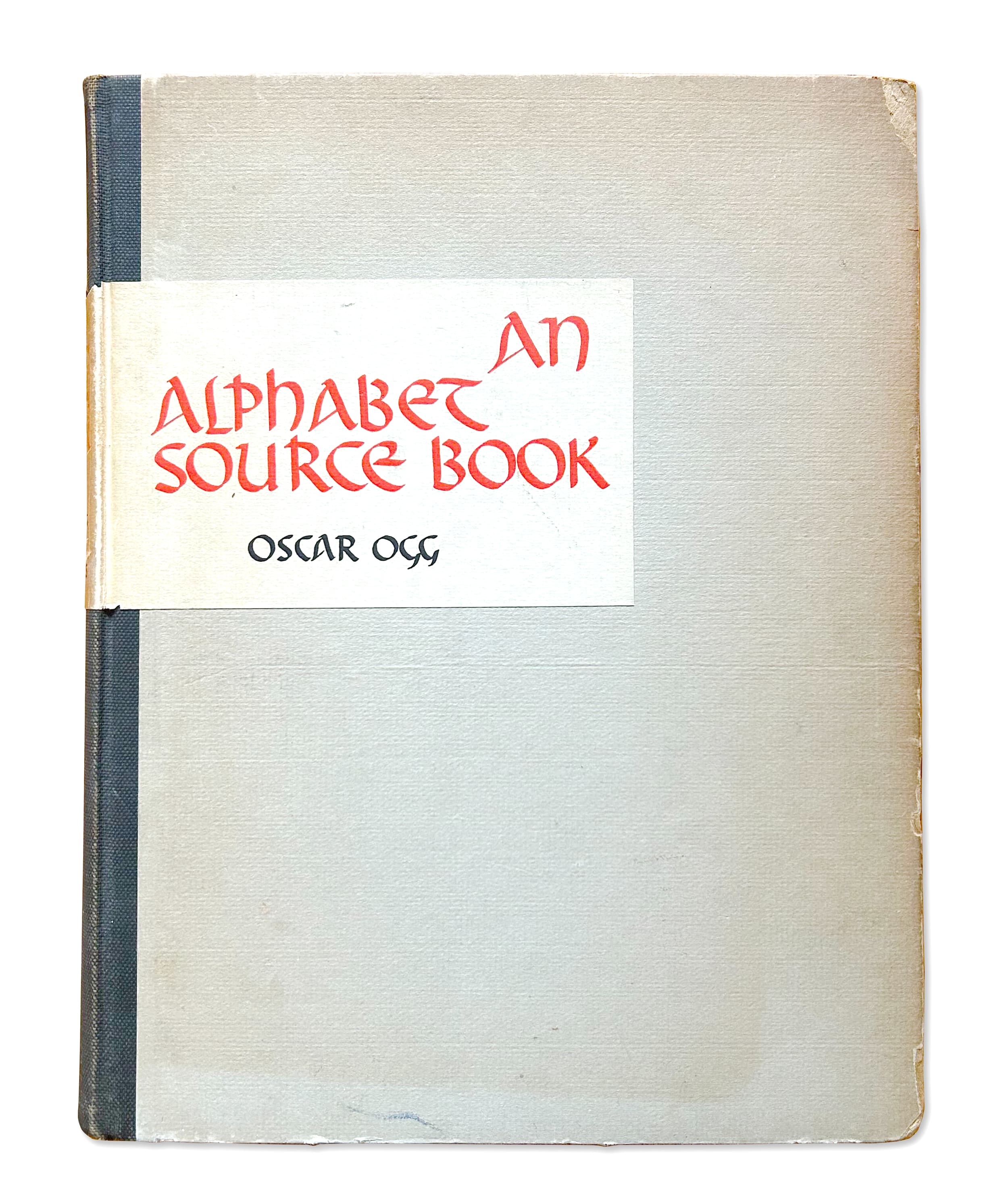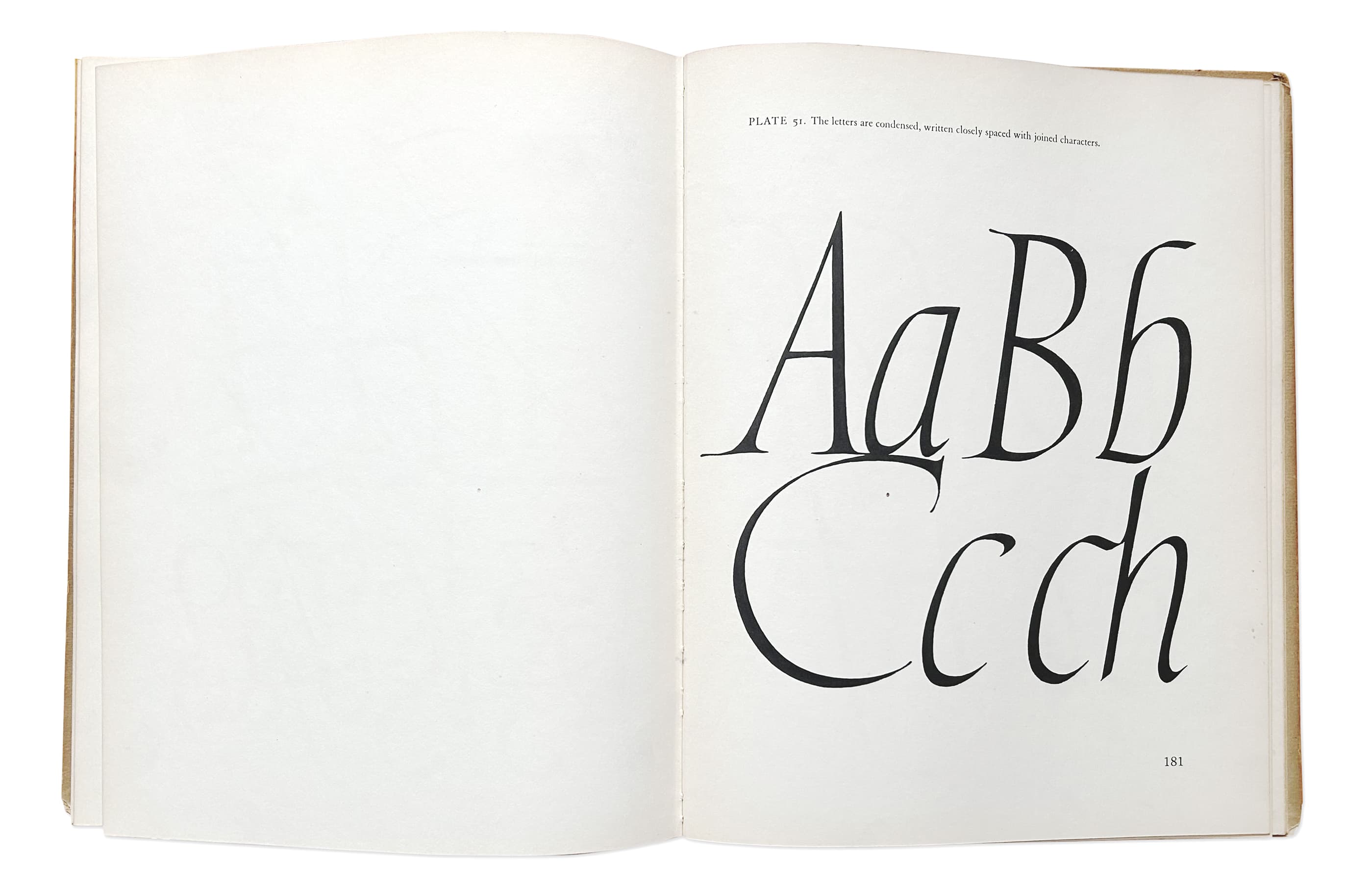
Sharp Freehand
Sharp Freehand is a striking calligraphic display typeface designed by Lucas Sharp, the latest installment in the foundry's tradition of publishing single-weight, roman & italic calligraphic display pairs. Sharp Freehand is a kind of deep cut: not destined to be a hit but perhaps a cult favorite, and nevertheless deserving of its place in the library. Based on the magnificent exemplars contained in Oscar Ogg's An ​Alphabet ​Source ​Book​ (1940), Sharp Freehand is an elegant addition to our ever-expanding compendium of calligraphic display faces that trace their origins to this 20th-century master of letters. An interesting aspect of this typeface is the artificial scarcity built into its unique licensing model. Licensing for Sharp Freehand is only available with the purchase of the Sharp Type Season One specimen book, so the limited run of 500 books is the total number of Sharp Freehand licenses that will ever be available.
Designer: Lucas Sharp
Oscar Ogg, An Alphabet Source Book